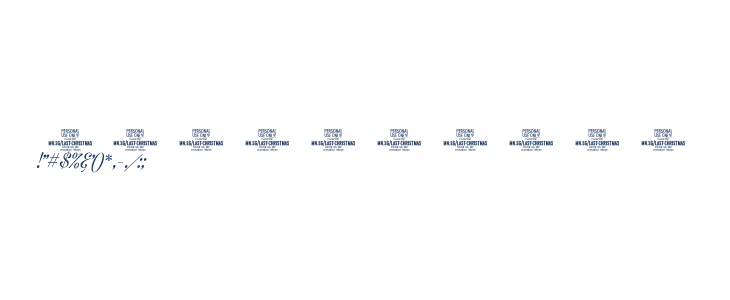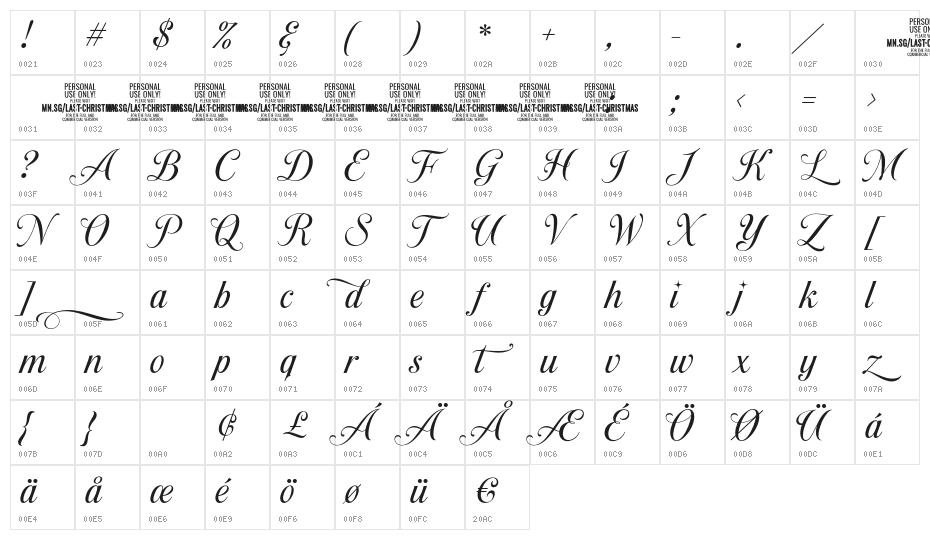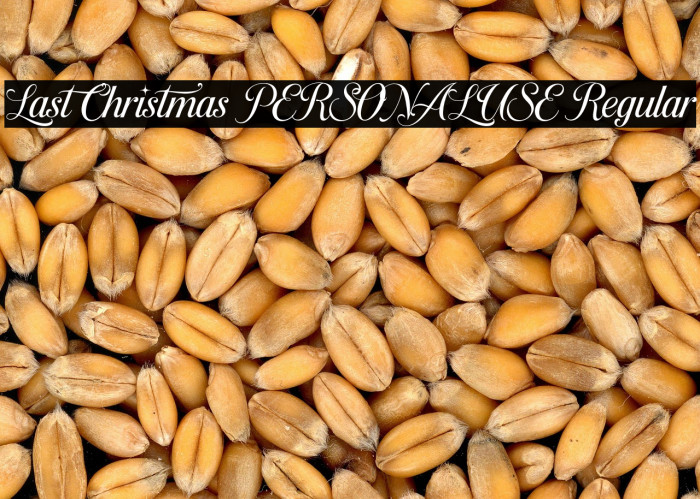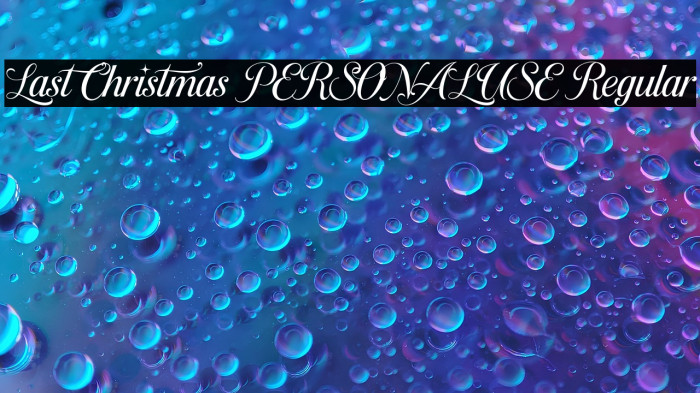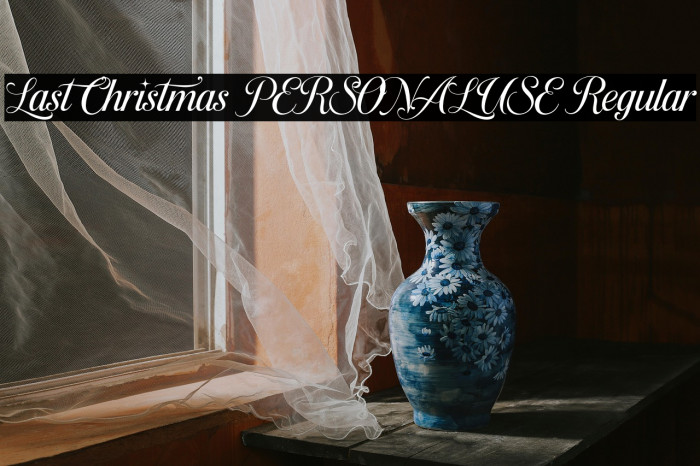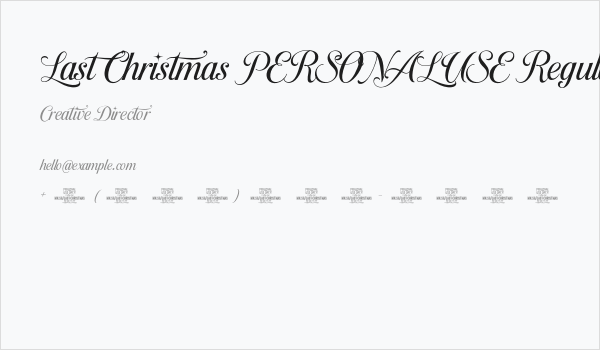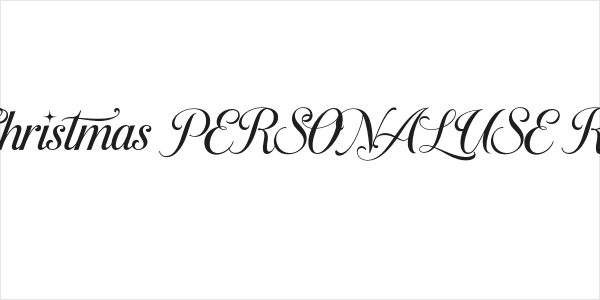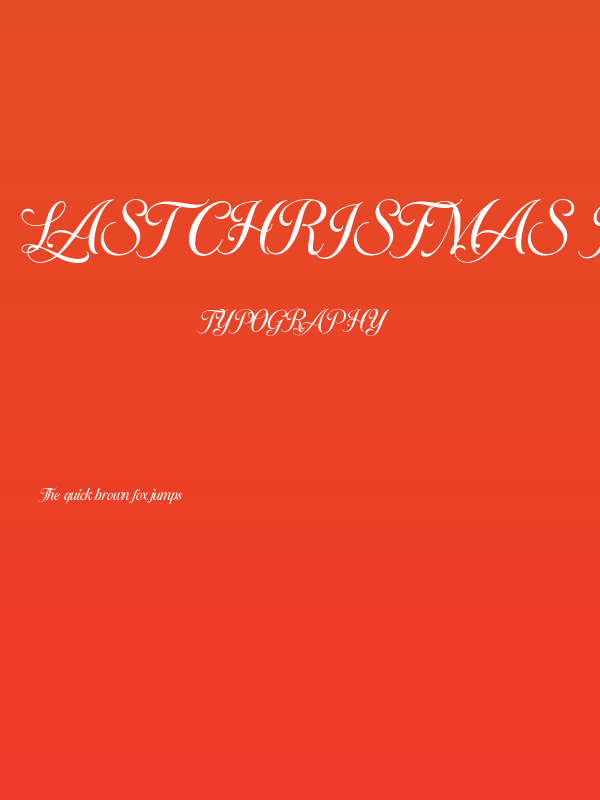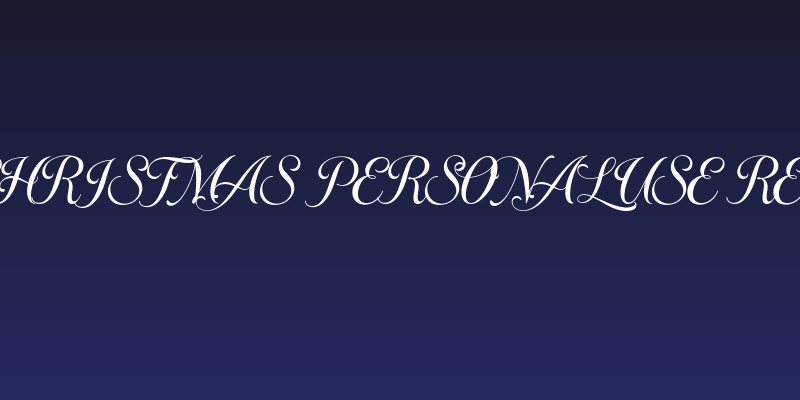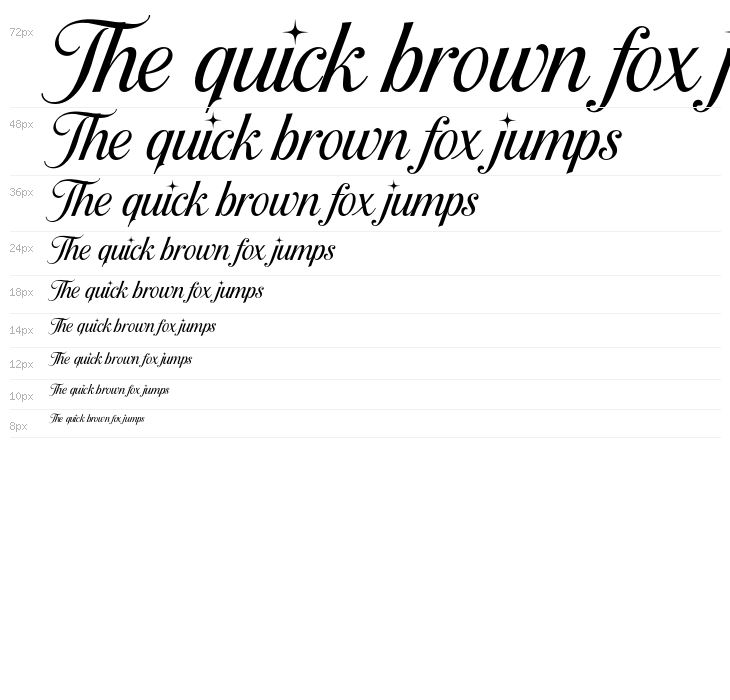
Last Christmas PERSONAL USE Regular Font
Last Christmas PERSONAL USE Regular Description
This font exudes elegance and sophistication with its flowing script style. The uppercase letters are characterized by sweeping curves and flourishes, giving them a decorative and ornate appearance. The lowercase letters maintain a consistent flow, with some characters featuring unique swashes that add a touch of flair. The numerals are stylish and complement the overall aesthetic, while the special characters are designed to match the font's elegant theme. This font is perfect for projects that require a touch of class and refinement.
| Overall Style | Elegant, Decorative |
| Use Case | Logos, Invitations, Decorative Text |
| Proposed Projects | Ideal for wedding invitations, luxury branding, greeting cards, and elegant signage. |